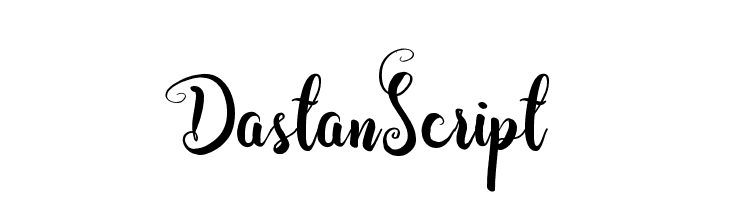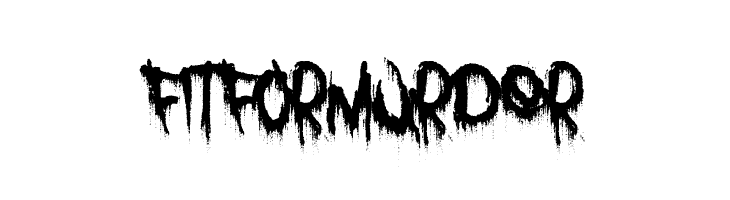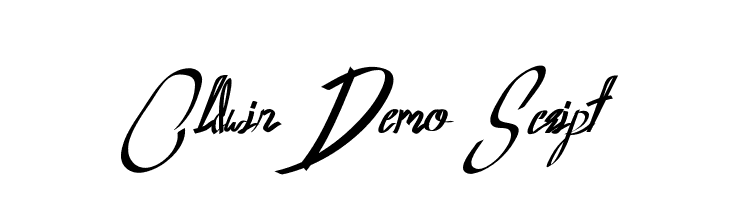
A bold, grunge-style font with a dripping, distressed effect.
A playful, casual handwritten font with flowing strokes and rounded edges.
A bold, playful font with a hand-drawn, energetic style.
A bold, brush-textured font with dynamic, jagged strokes.
A bold, geometric font with strong, angular lines and a blocky appearance.
A bold, geometric, and italic font with a futuristic and expanded style.
A whimsical and decorative font with elegant swashes and flourishes.
A dynamic and elegant italic script font with flowing cursive letterforms.
A dynamic, brush-style font with expressive, hand-drawn strokes.
A playful, bold handwritten font with a casual and friendly style.